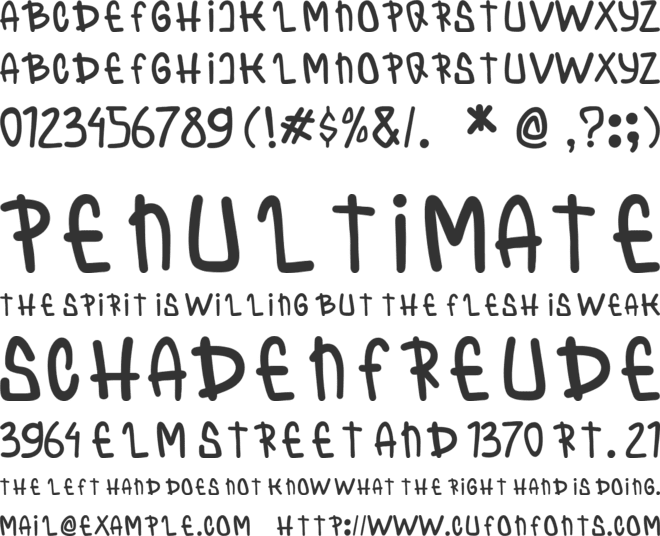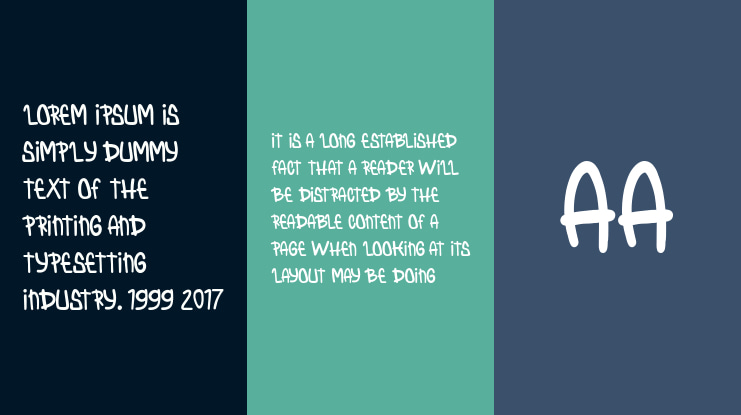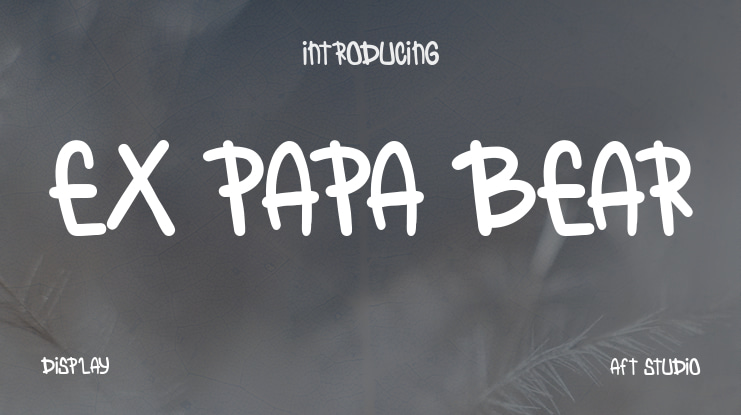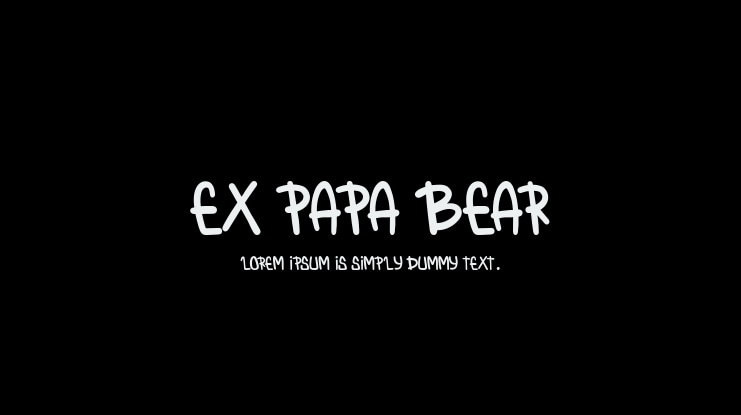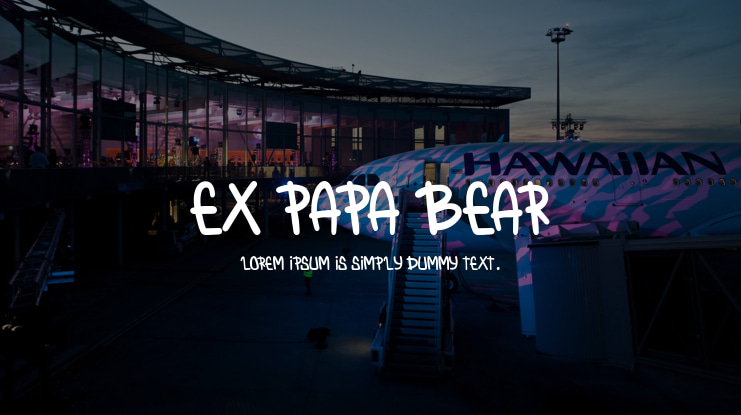
(EX PAPA BEAR) This font is a donation from me to you, and it is completely free. It is designed for those who need fonts for their printing business, such as hangtags, logotypes, flyers, brochures, banners, thumbnails, and other social media needs. My hope is that using this font will bring you health and success. And, in turn, I hope that my own health and success can contribute to your future as well.
I created this font during a time when no one, including friends, family, or even your boss, was there to help you. It is during these times that only God can support you and guide you on your path, after you have made an effort.